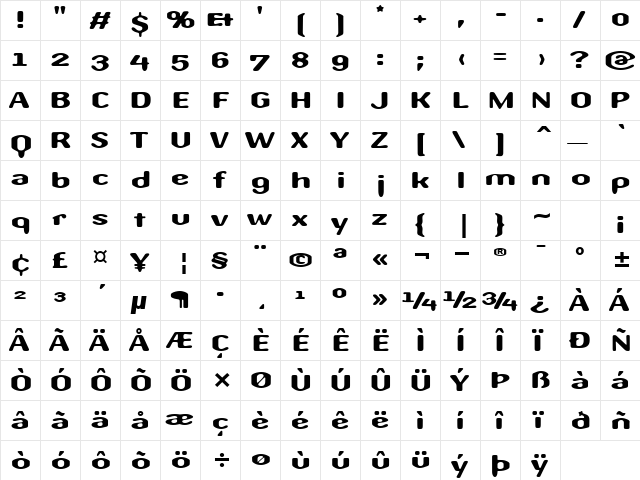
AspirinITC TT Regular
| Foundry | International Typeface Corporation |
| Designer | Jochen Schuss |
Design Context for AspirinITC TT Typeface
AspirinITC TT is a composed and adaptable typeface that performs quietly and consistently across a wide range of design contexts.